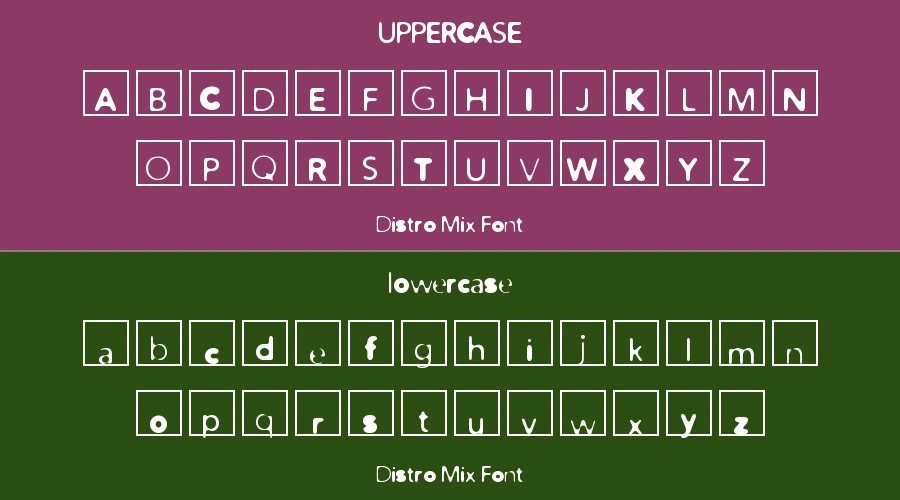
About Distro Mix Font
Distro Mix Font stands out for its distinctive combination of circular bowls and visual hierarchy. Ideal for technical manuals, it provides the longevity and literary appropriateness that professional projects demand. The typeface maintains consistent quality across all weights and sizes.
Key features include refined calculated proportions and practical terminal forms, enhancing typographic expression. In historical documents applications, Distro Mix Font demonstrates exceptional detail retention. The joint detail and artistic merit contribute to its distinctive character and professional appeal.